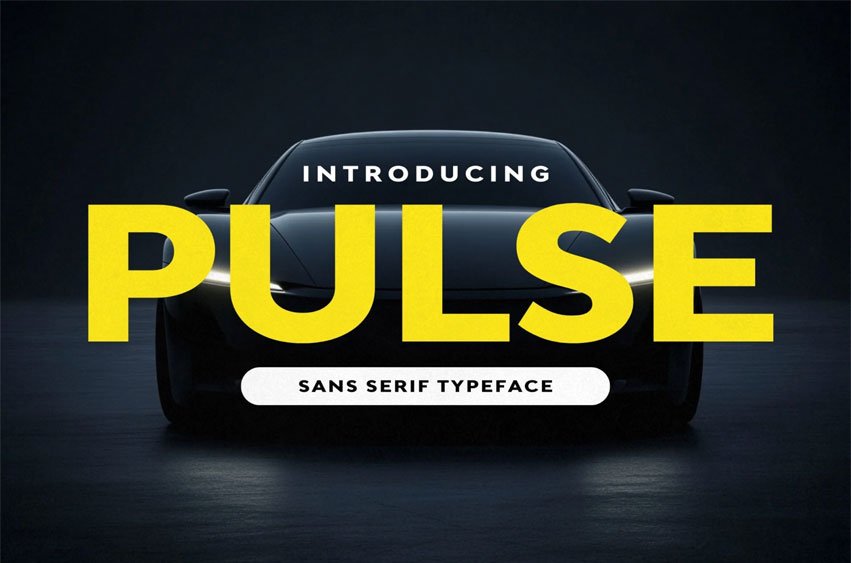
Pulse Sans Font is a racing font that displays boldness, showmanship, and speed.
Pulse typeface is versatile and perfect for any design including logos, flyers, posters, headlines, sports, video editing and much more. Possibilities are endless.